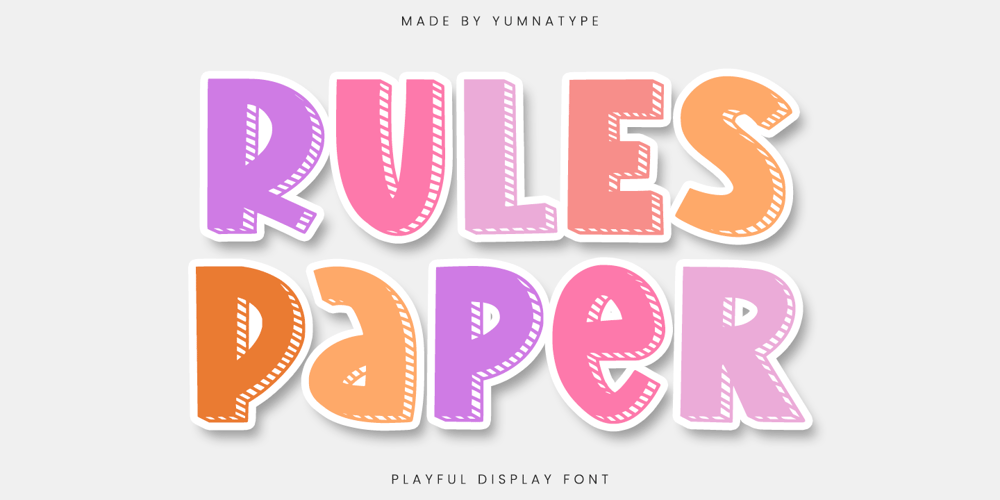
Rules Paper Font Family was designed by Donis Miftahudin and published by Yumna Type. Rules Paper contains 1 styles and family package options. Rules Paper is a captivating display font designed to infuse your projects with a playful and dynamic vibe. Crafted with a thick weight, this font stands out with its bold and confident presence. The playful style of Rules Paper is evident in its rounded shapes, giving the font a friendly and approachable character. Each letter is meticulously designed with consistent proportions, ensuring a harmonious and balanced appearance across your text. With quite visible contrast, Rules Paper adds depth and dimension to your words, enhancing readability and visual interest. In addition, enjoy the features here.Features: Ligatures Multilingual Supports PUA Encoded Numerals and Punctuations Rules Paper fits in headlines, logos, posters, flyers, branding materials, print media, editorial layouts, and many more designs. Find out more ways to use this font by taking a look at the font preview.Thanks for purchasing our fonts. Hopefully, you have a great time using our font. Feel free to contact us anytime for further information or when you have trouble with the font. Thanks a lot and happy designing.